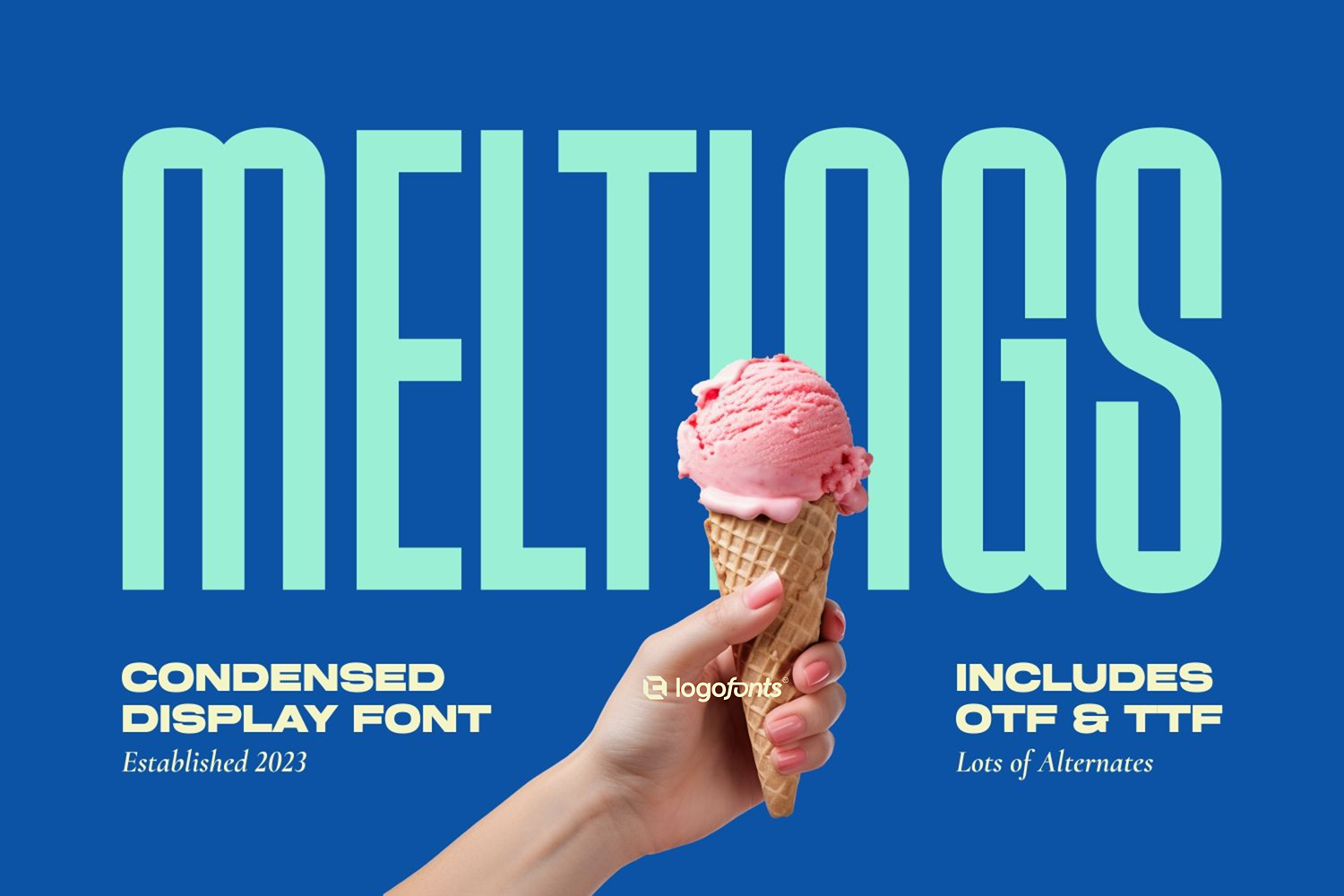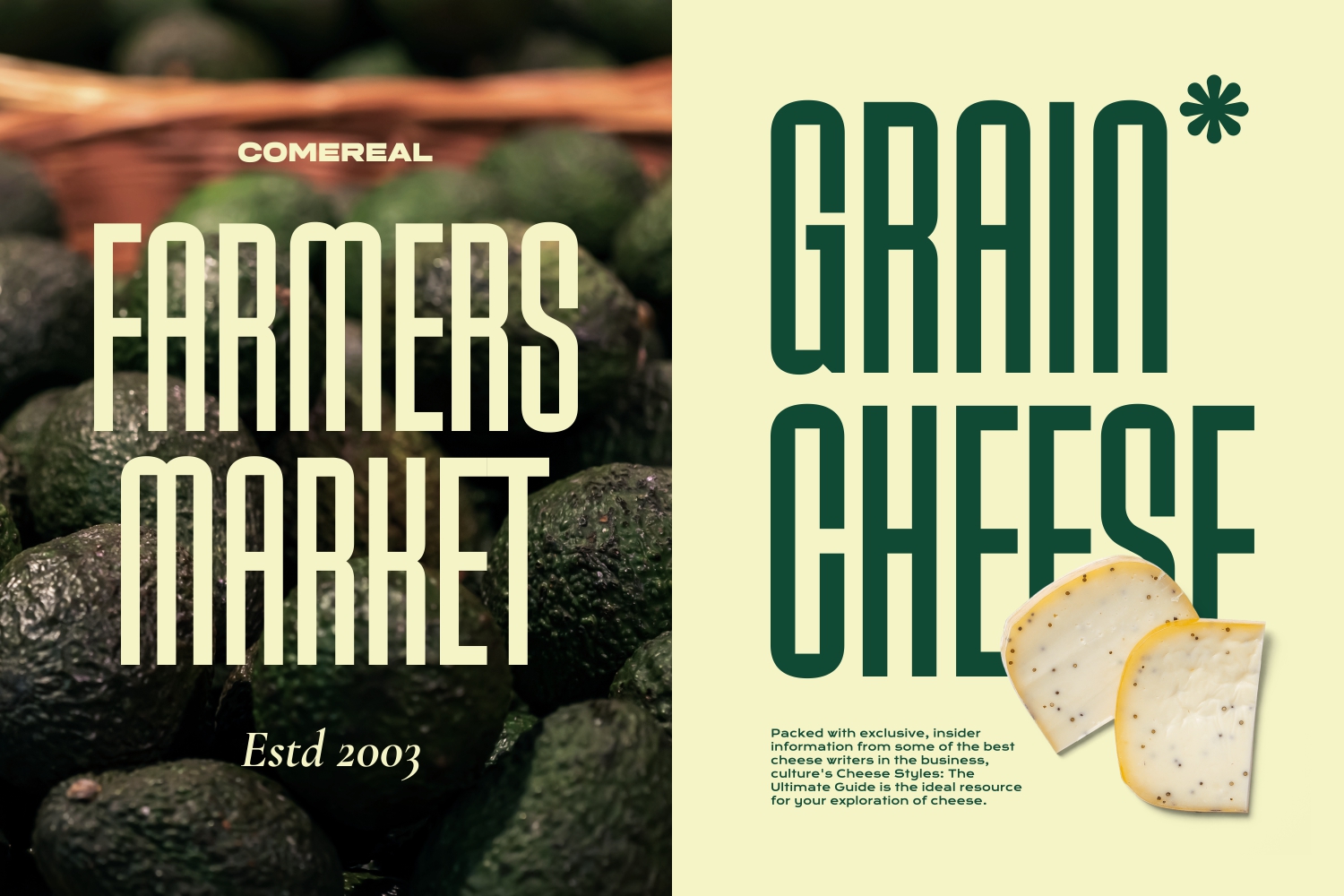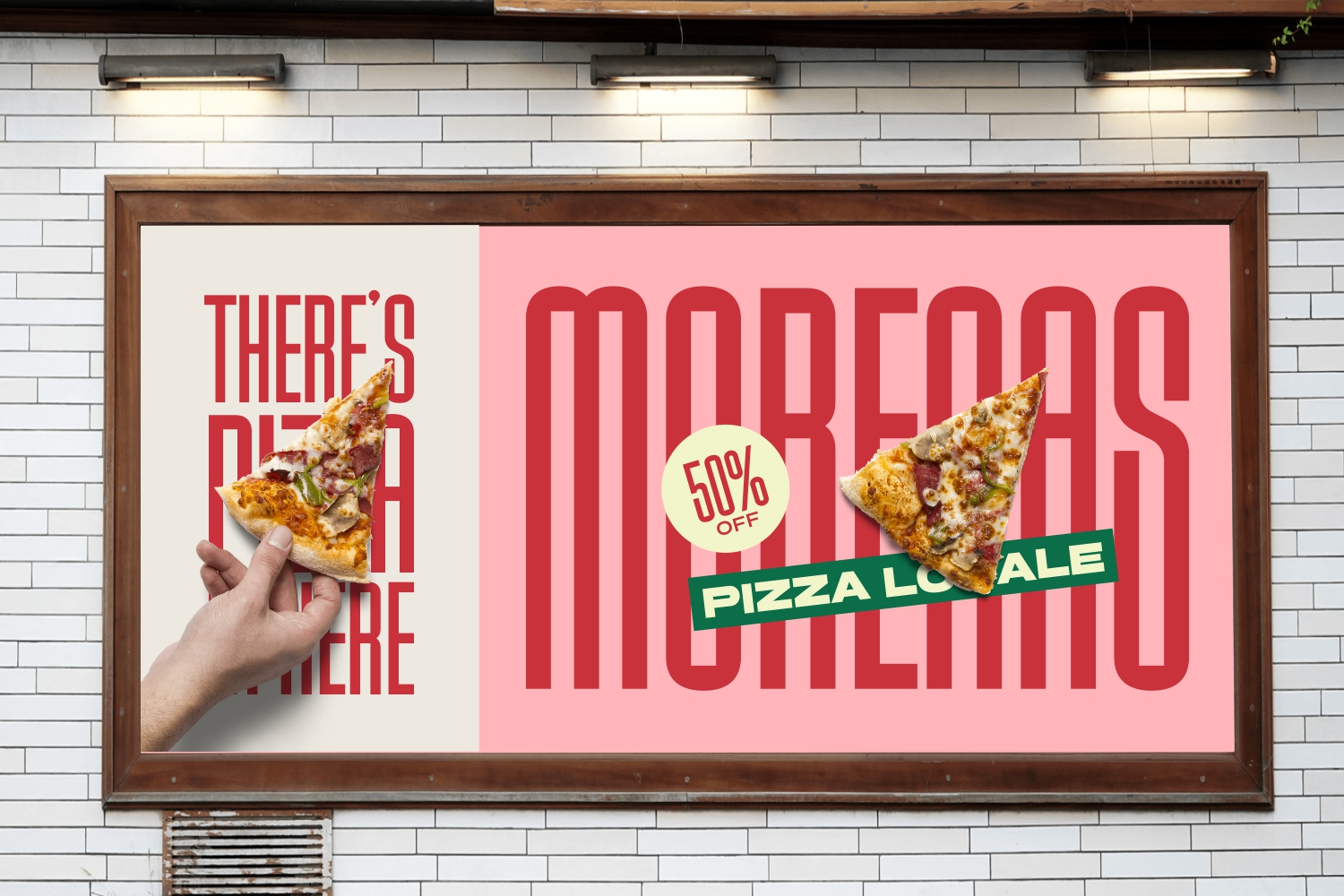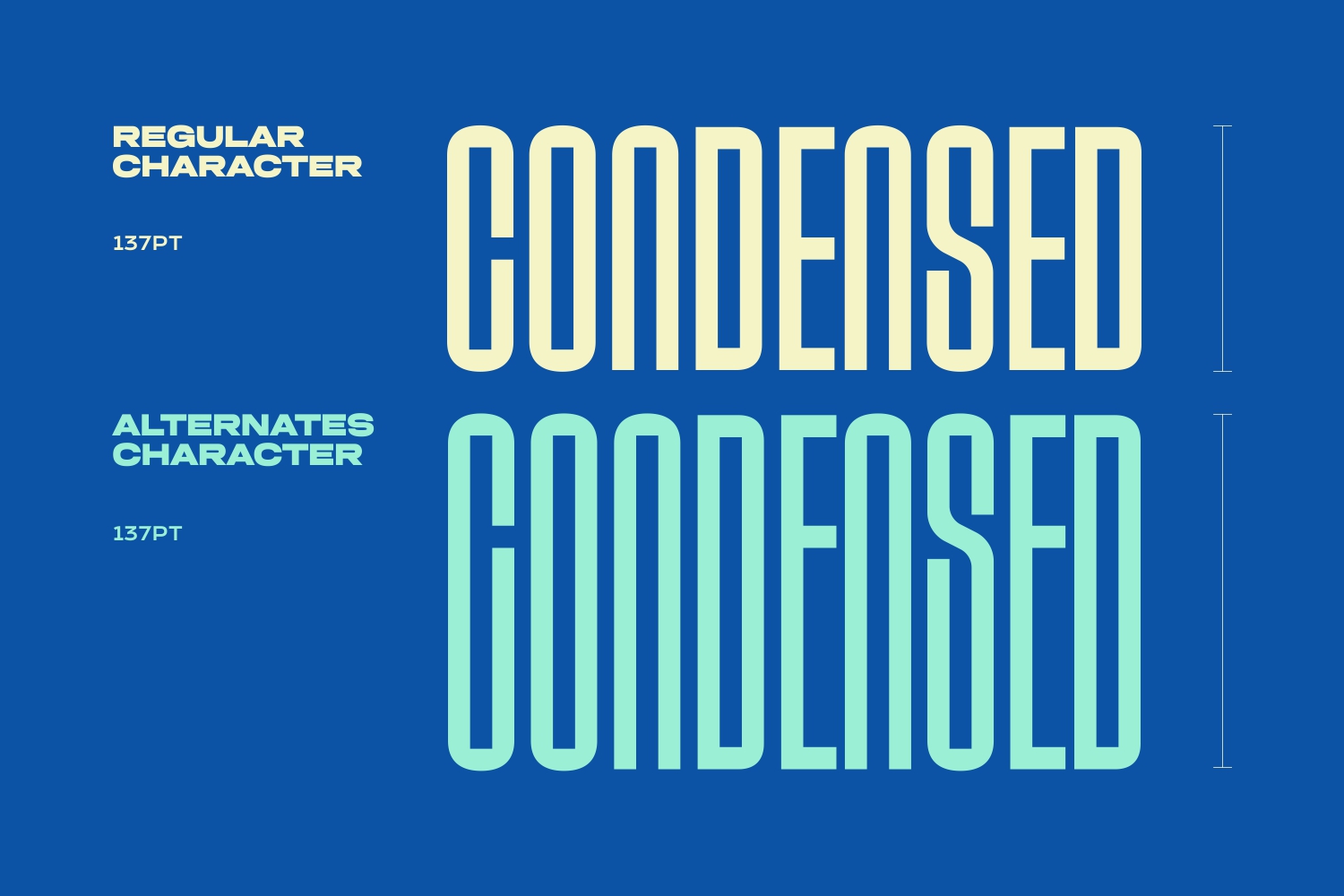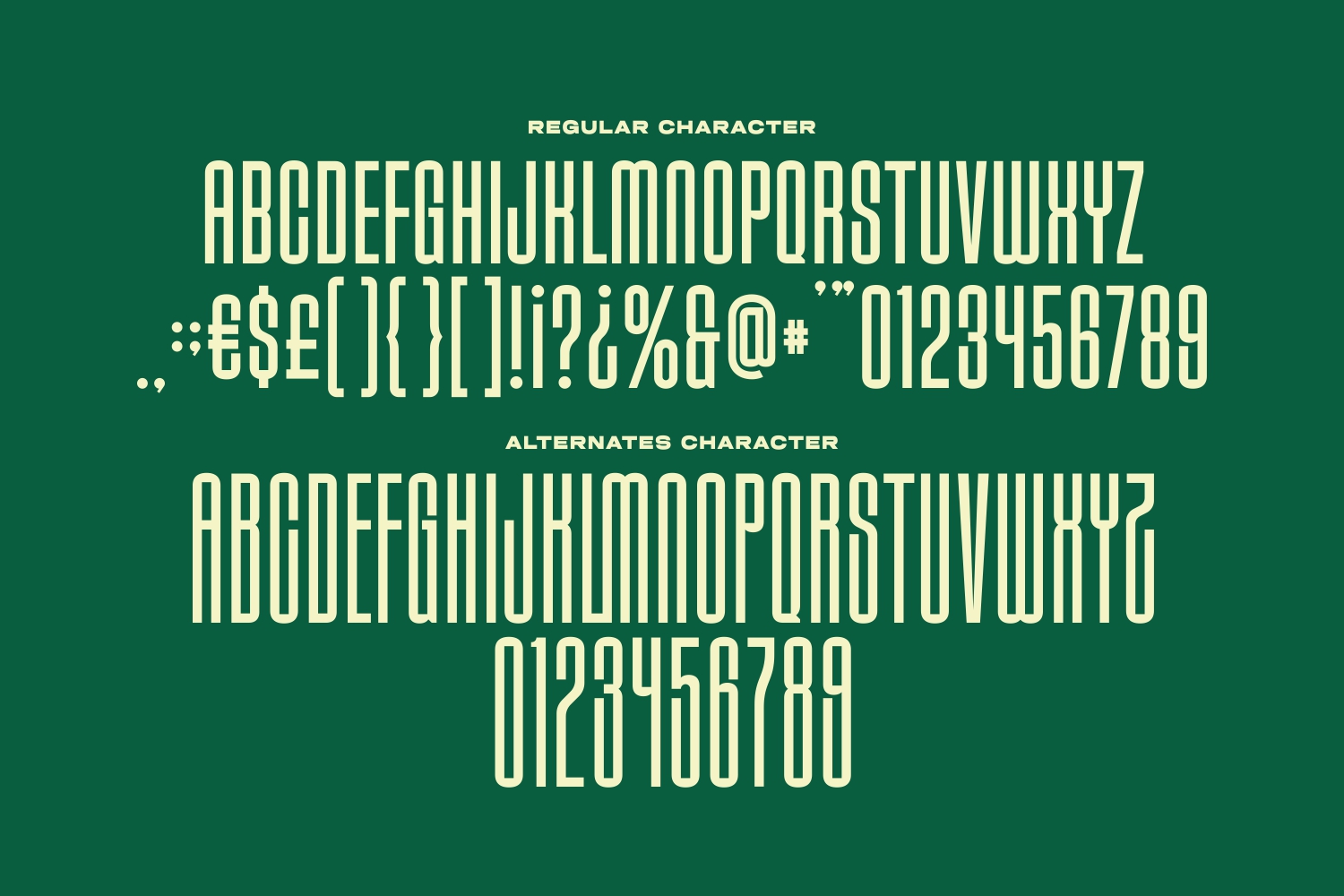
MELTINGS is a condensed display font that brings a bold, modern, and energetic feel to your design. With its ultra-tall letterforms and tight spacing, this typeface makes an immediate impact—ideal for headlines, packaging, advertising, and branding that needs to command attention. Its sleek geometry and clean lines create a futuristic but accessible visual language.
The font includes alternate characters to provide creative flexibility, making it suitable for both playful and editorial layouts. Whether used for food brands, lifestyle posters, or digital promotions, MELTINGS maintains legibility while projecting a strong, confident personality.
Meltings